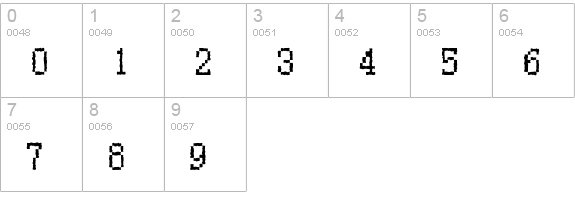
Rough37-Bold Font Details
Rough37-Bold is a strong, high-contrast variant in the Rough37 typeface family \xE2\x80\x94 well suited to headlines, attention-grabbing titles, and strong calls-to-action.
Rough37-Bold font is a bold and striking typeface that exudes strength and character. Its rough edges and bold strokes give it a rugged and adventurous feel, making it perfect for designs that require a touch of boldness and personality. This versatile font can be used for a variety of projects, from posters and logos to packaging and branding. The best part? Rough37-Bold font is completely free to download at FontsMarket.com. This means you can add this unique and eye-catching font to your collection without any cost, making it accessible to designers and creatives of all levels. So why wait? Download Rough37-Bold font today and add a touch of boldness to your next project!